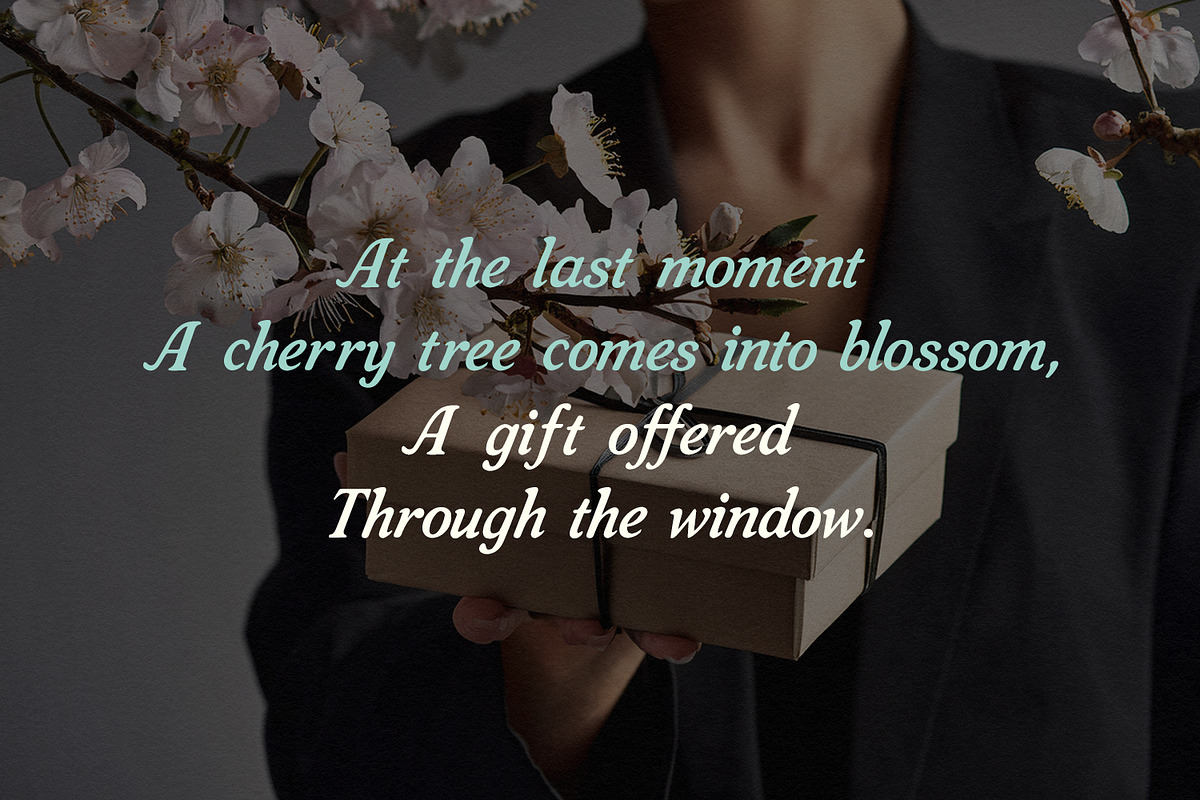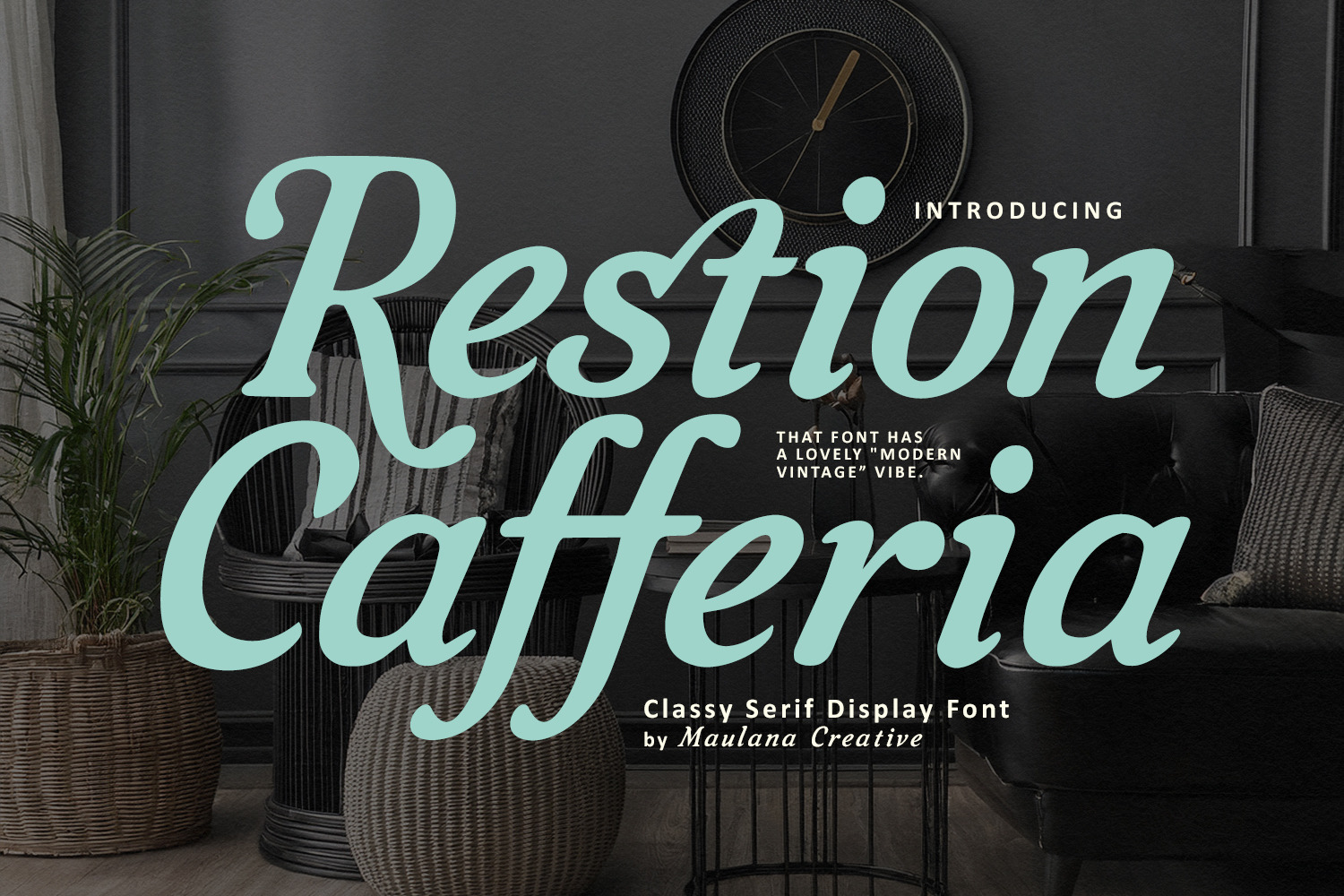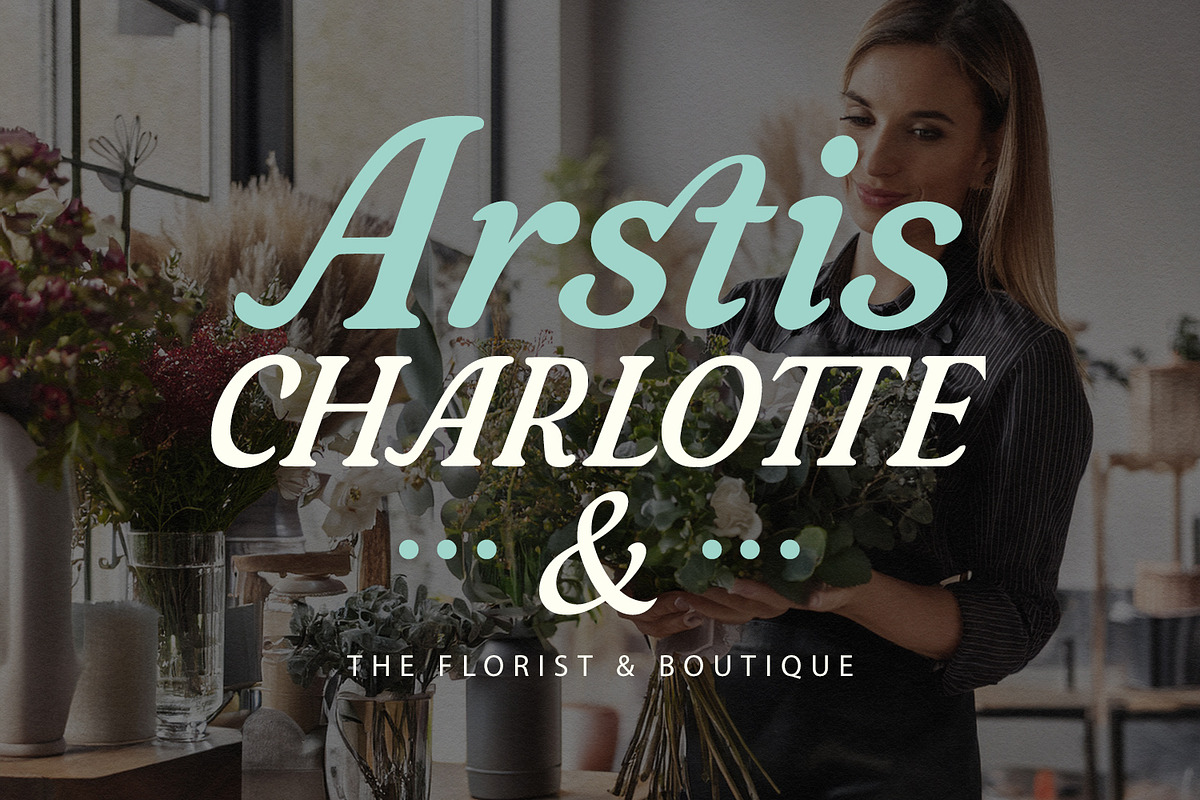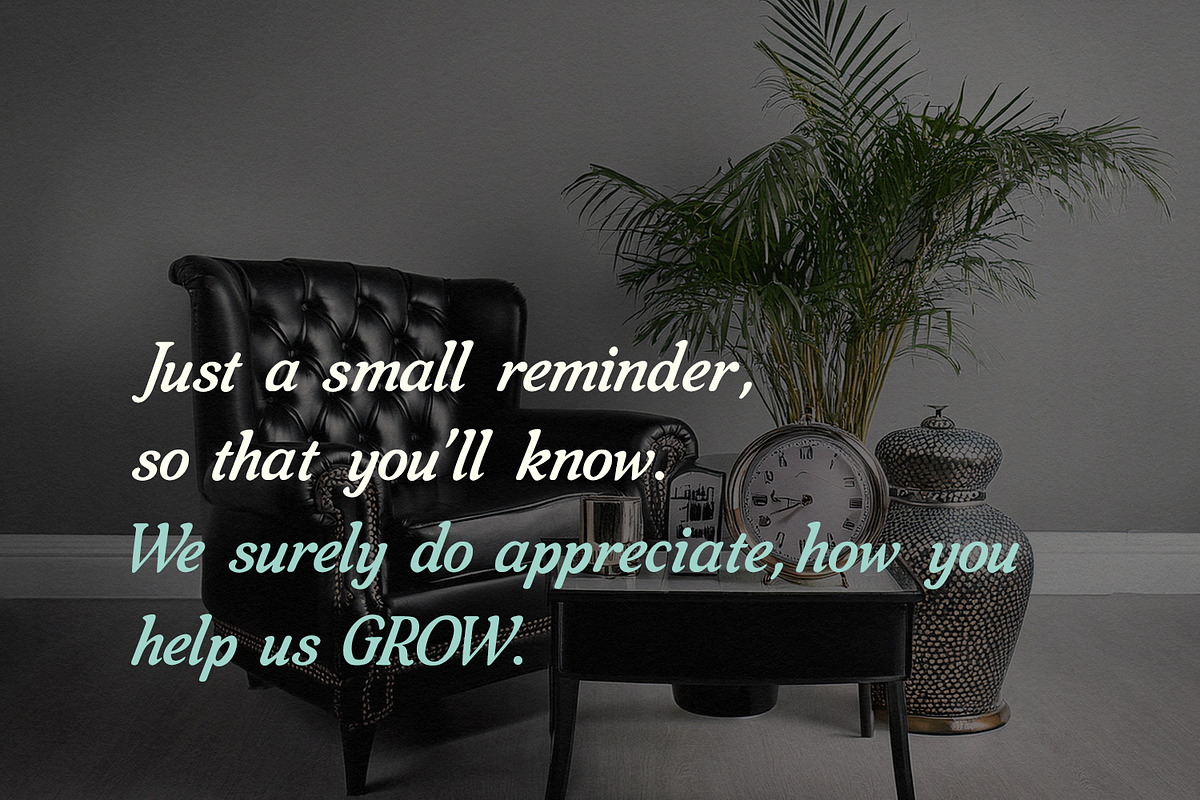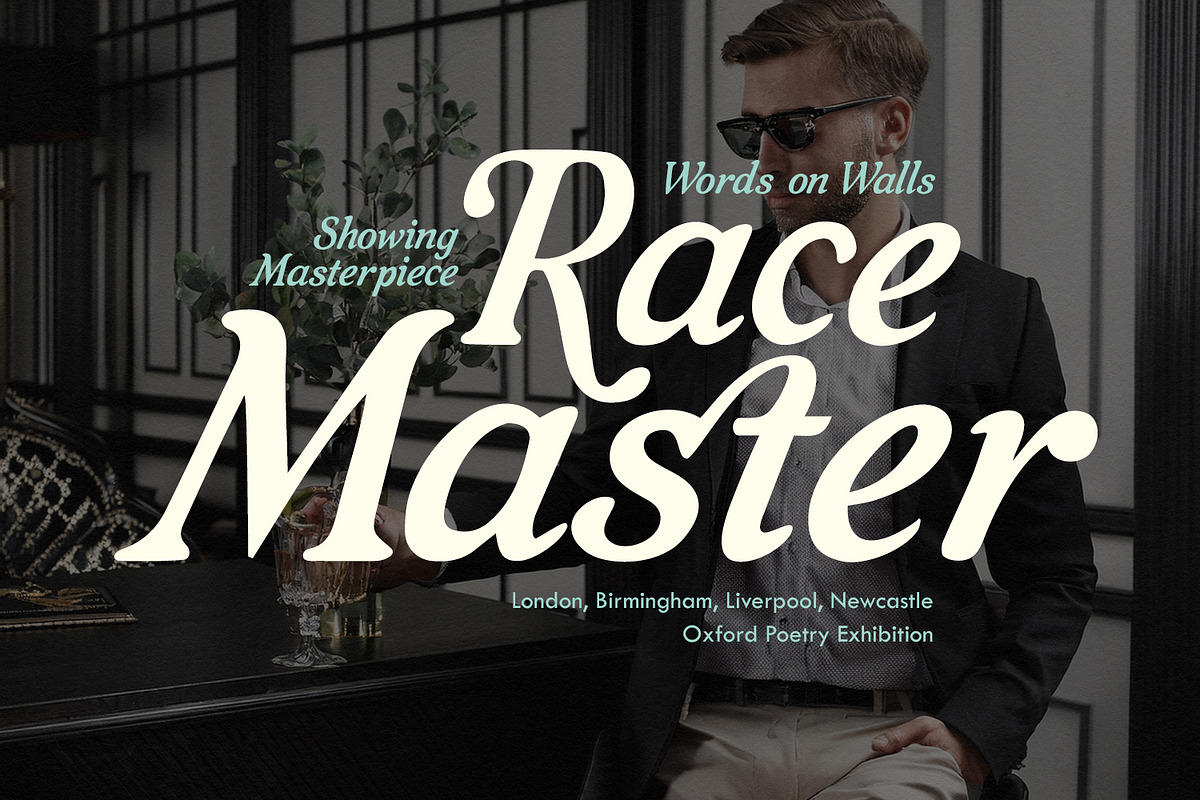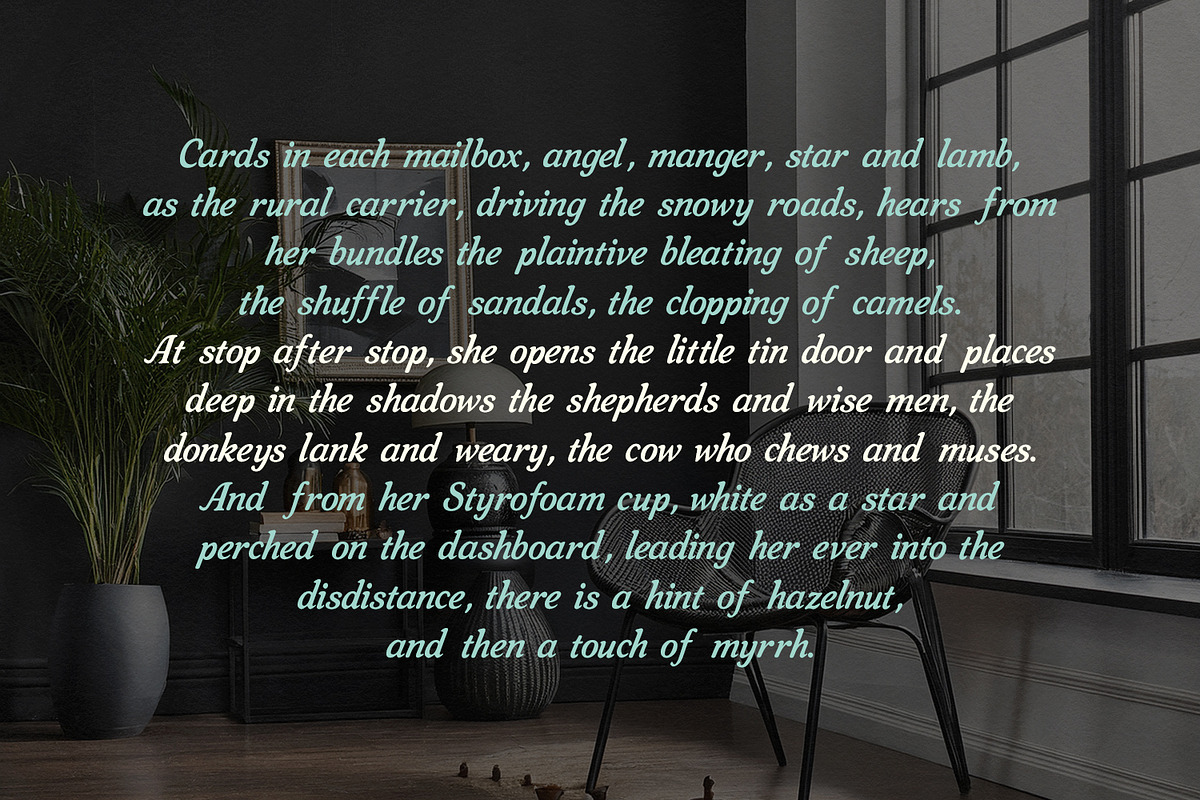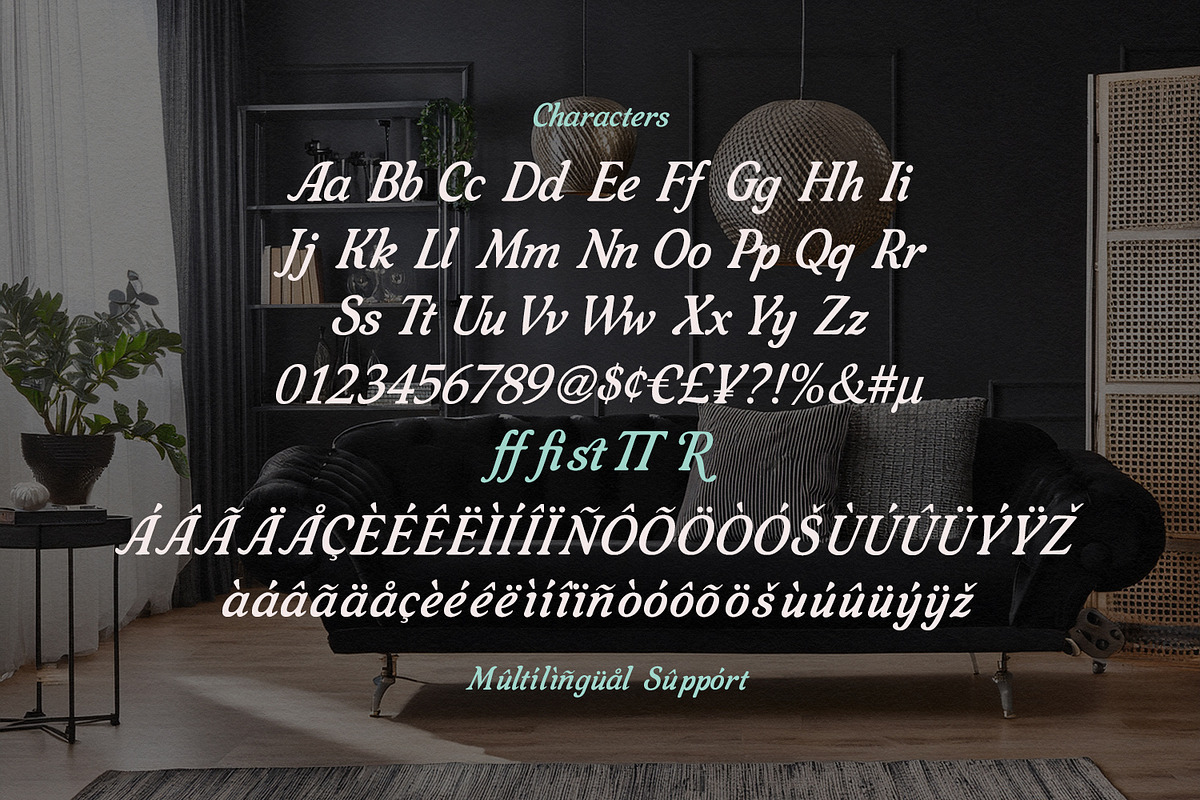
Restion Cafferia Classy Serif Font
Restion Cafferia is a sophisticated serif display font that masterfully blends traditional elegance with a modern vintage aesthetic. Designed by Maulana Creative, this typeface features a graceful italicized slant, fluid curves, and distinctive ligatures that evoke a sense of high end luxury and timeless style.
Its unique character makes it an ideal choice for:
- Branding & Logos: Perfect for fashion boutiques, florist shops, and premium lifestyle brands.
- Editorial Design: Elevates magazine layouts, poetry, and artistic headlines.
- Social Media: Adds a touch of class to quotes and promotional graphics.
- Event Stationery: Beautifully suited for wedding invitations and exhibition posters.
The font includes comprehensive multilingual support and a variety of stylistic alternates to ensure your designs look like a handcrafted masterpiece.
- Full character set
- Numbers, Punctuation, and Symbols
- Ligature and alternates for a natural handwriting flow